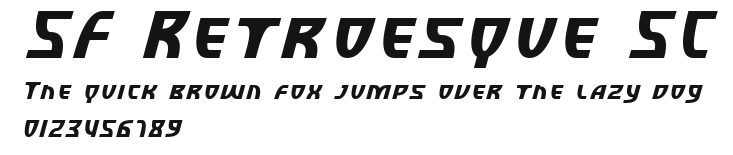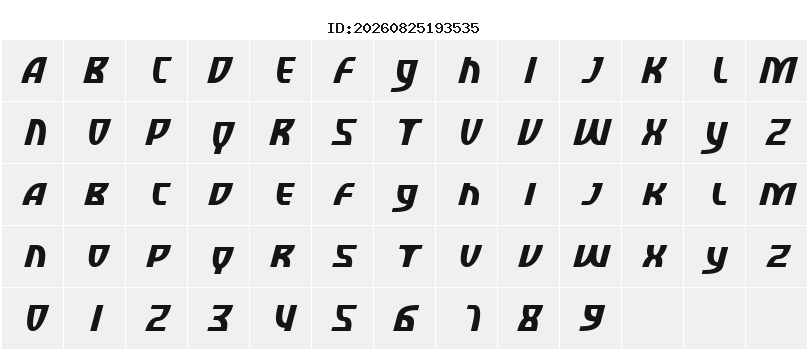
SF Retroesque SC Preview
• Font Name: SF Retroesque SC
• Font ID: SF Retroesque SC Italic
• Full Font Name: SF Retroesque SC Italic
• PostScript Name: SFRetroesqueSCItalic
About SF Retroesque SC.ttf
SF Retroesque SC.ttf is a modern, elegant sans-serif font designed for ultimate readability and visual harmony. Perfect for branding, headlines, web design, and print materials.